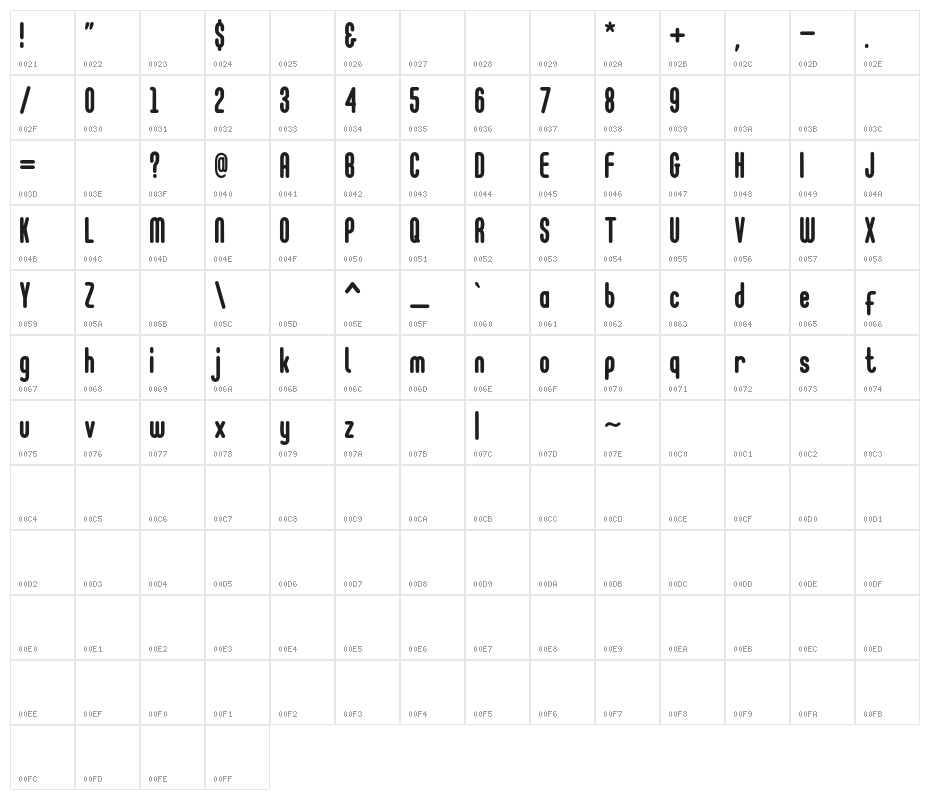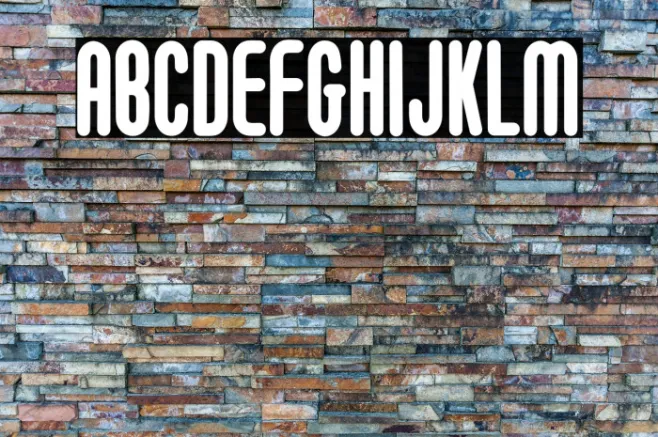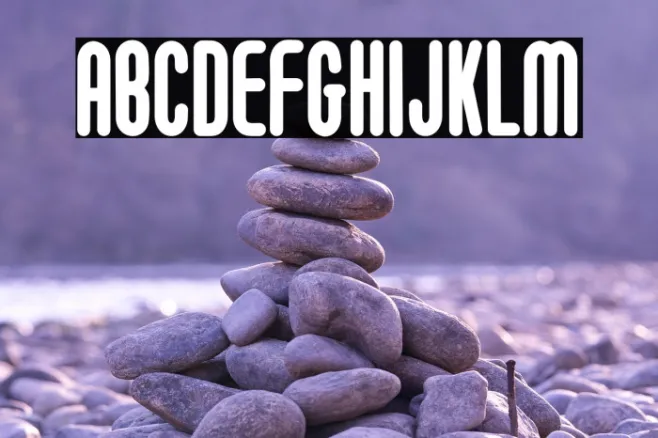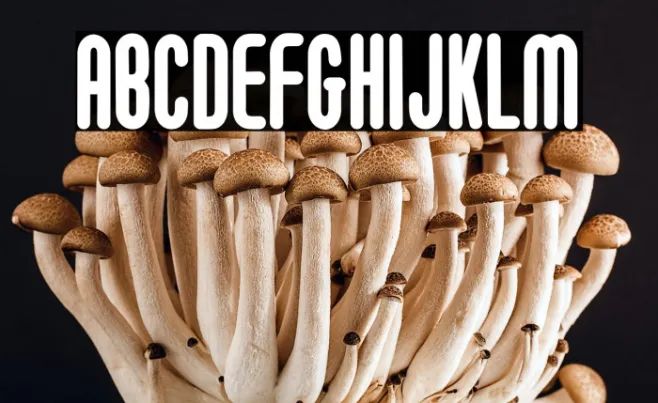
Go Cloud Font
Go Cloud Description
This font features a playful and rounded design, characterized by its thick, uniform strokes and smooth curves. The letters are bold and have a consistent width, giving them a friendly and approachable appearance. The rounded edges and lack of sharp angles contribute to its modern and casual style. The font maintains a consistent height across uppercase and lowercase letters, with a slight variation in the lowercase set to enhance readability. The numerals are equally rounded, matching the overall aesthetic of the alphabet. Special characters are designed with the same playful curves, ensuring cohesion throughout the character set.
| Proposed Projects | Ideal for children's books, playful branding, casual invitations, and social media graphics. |